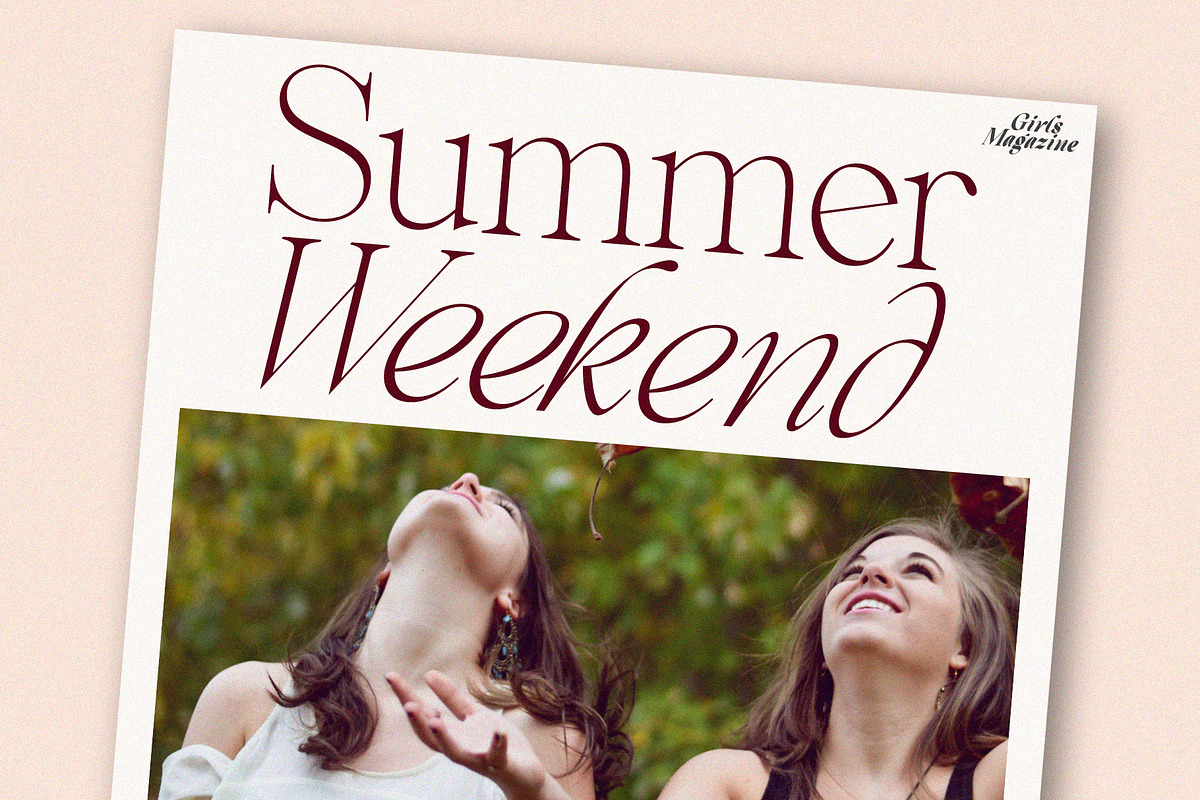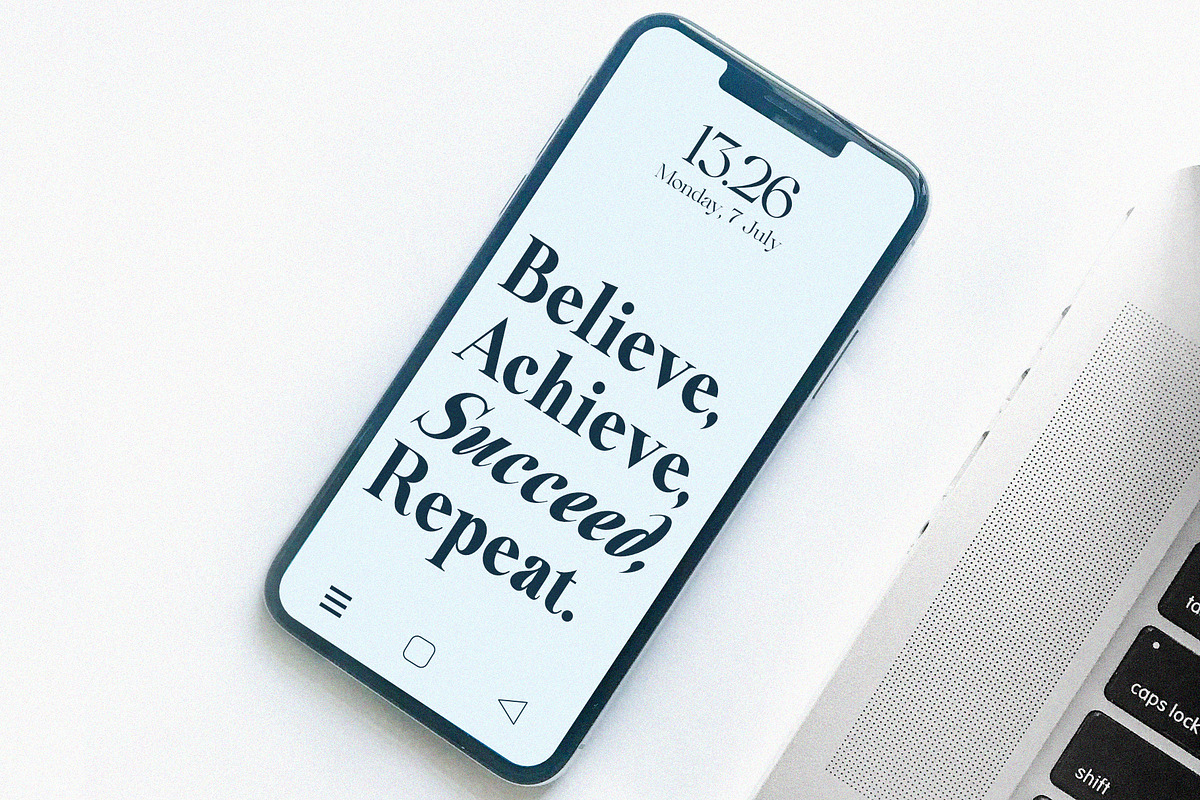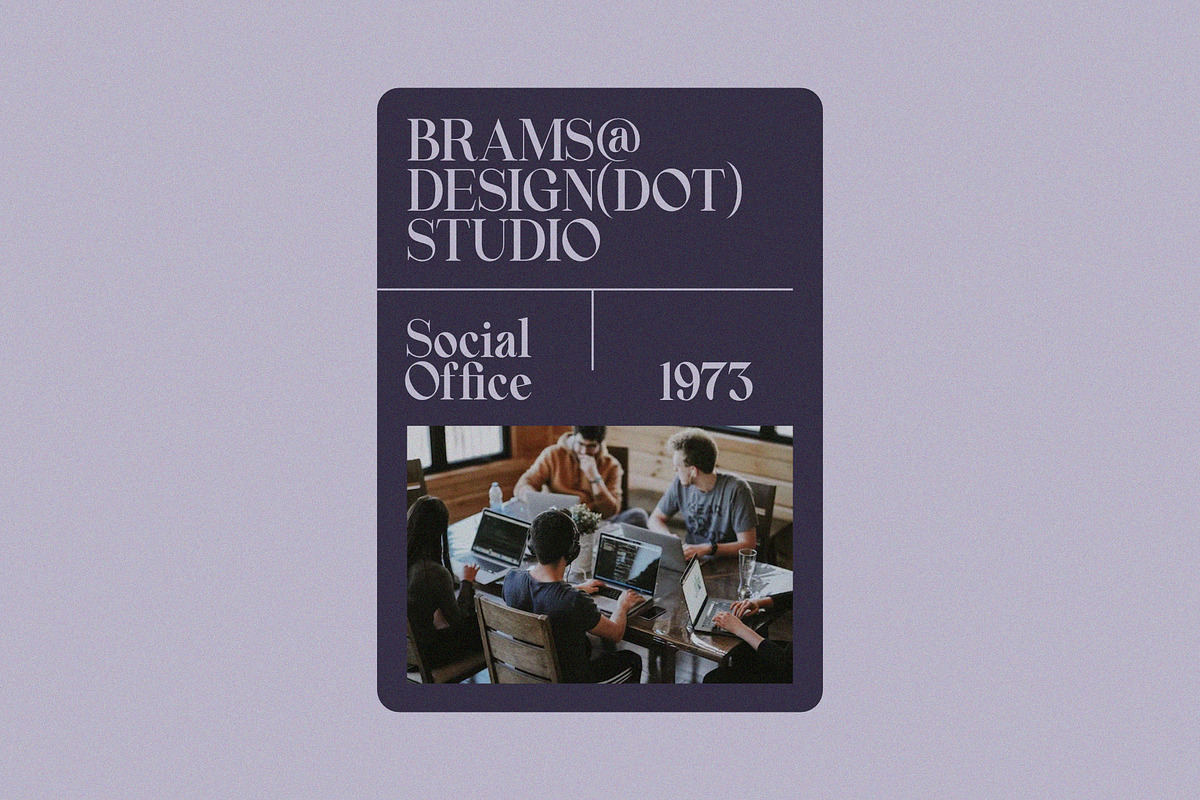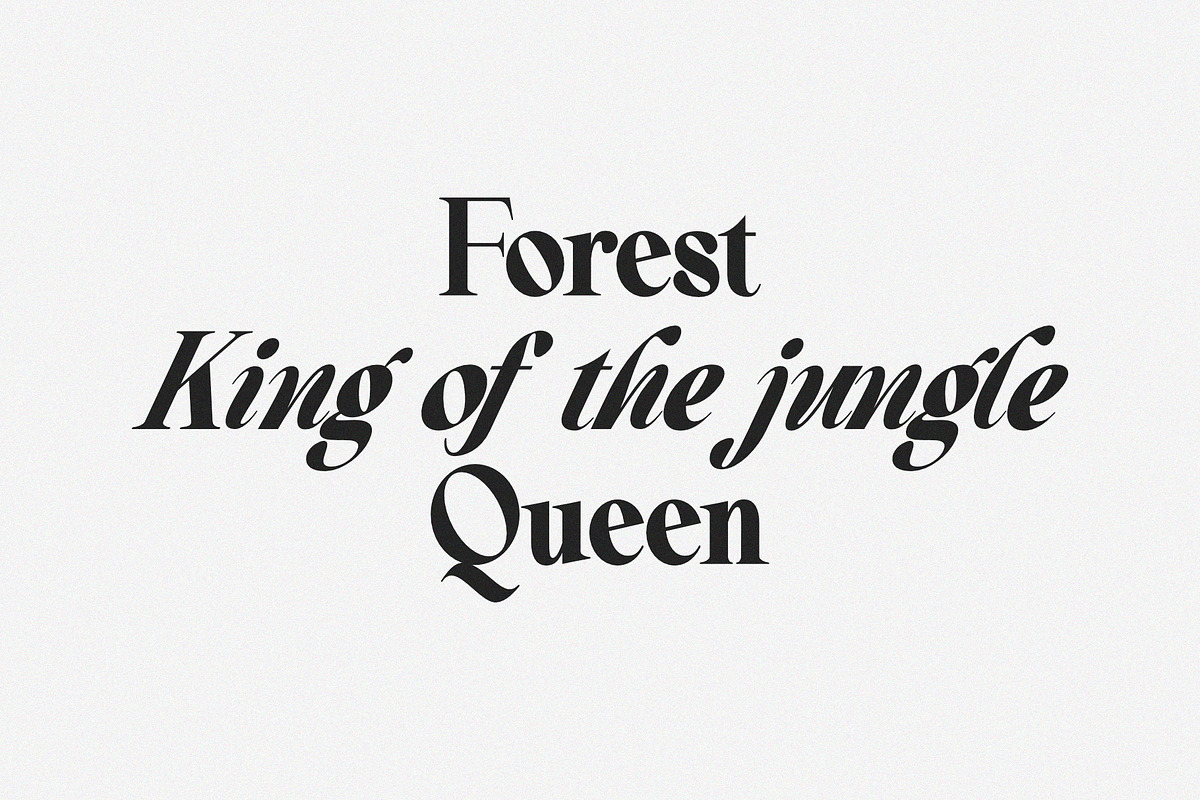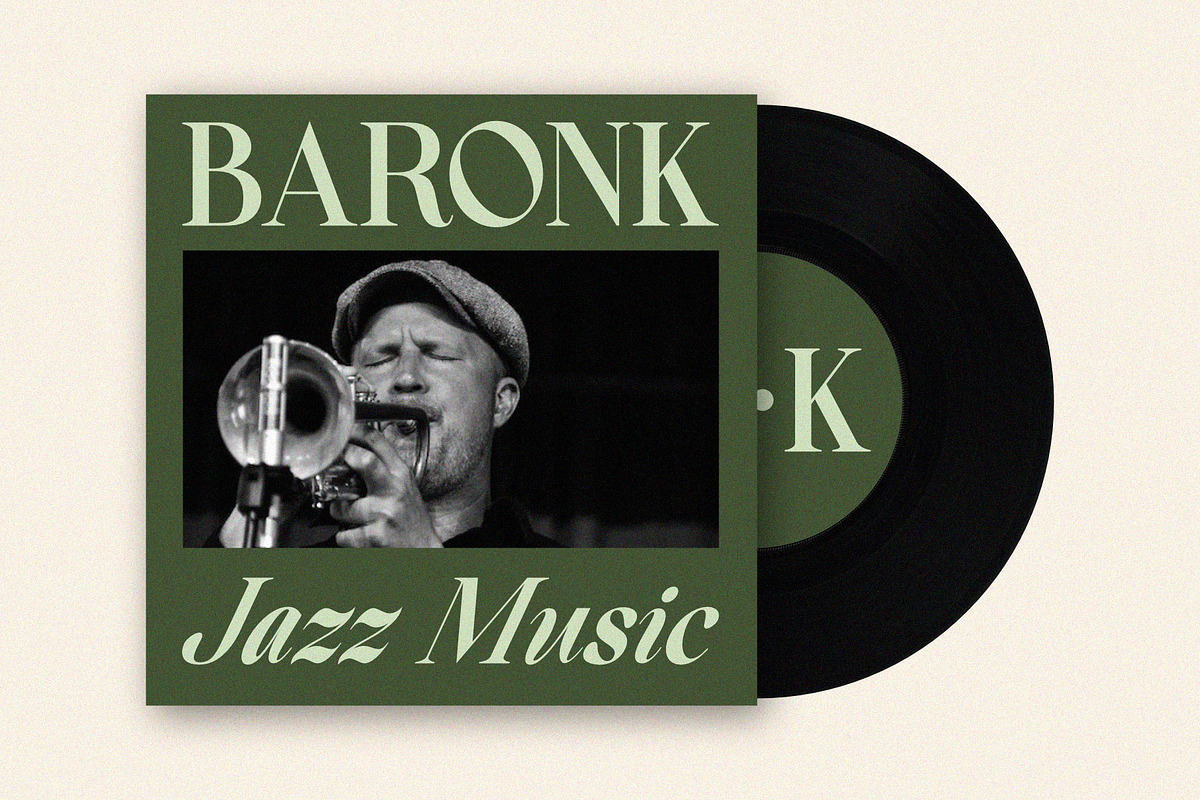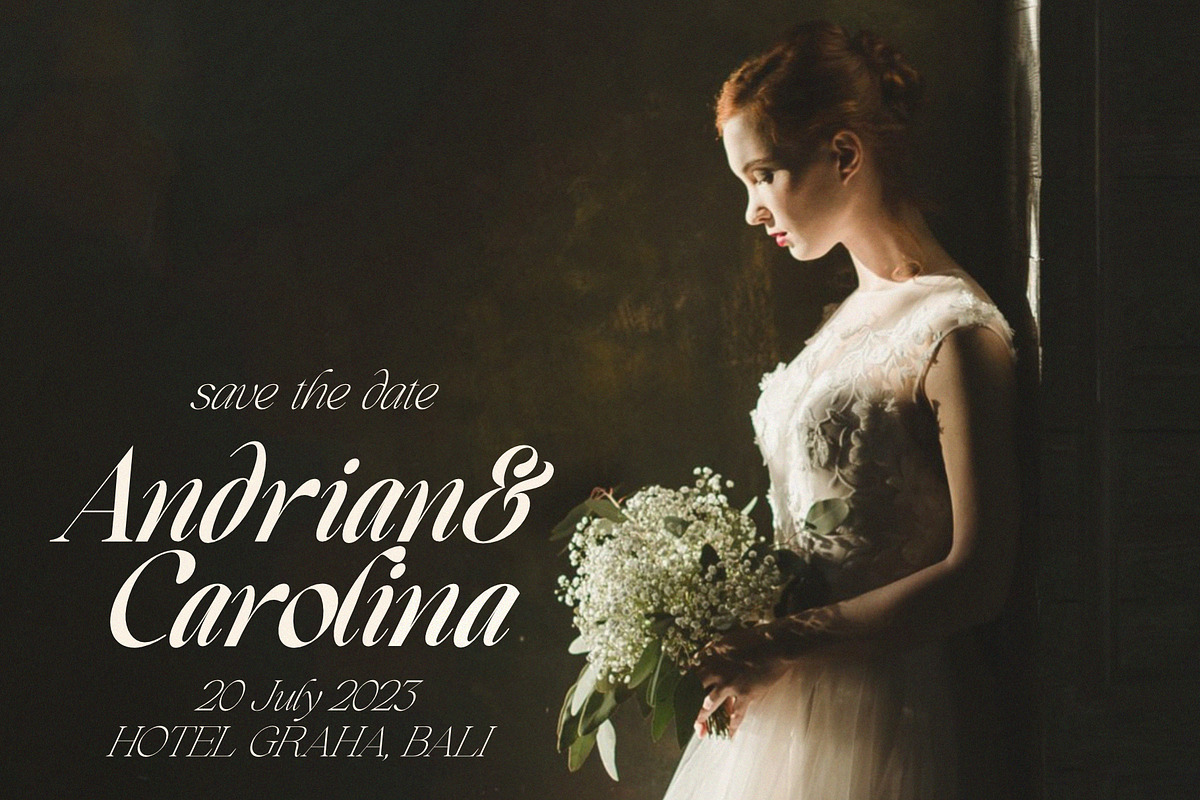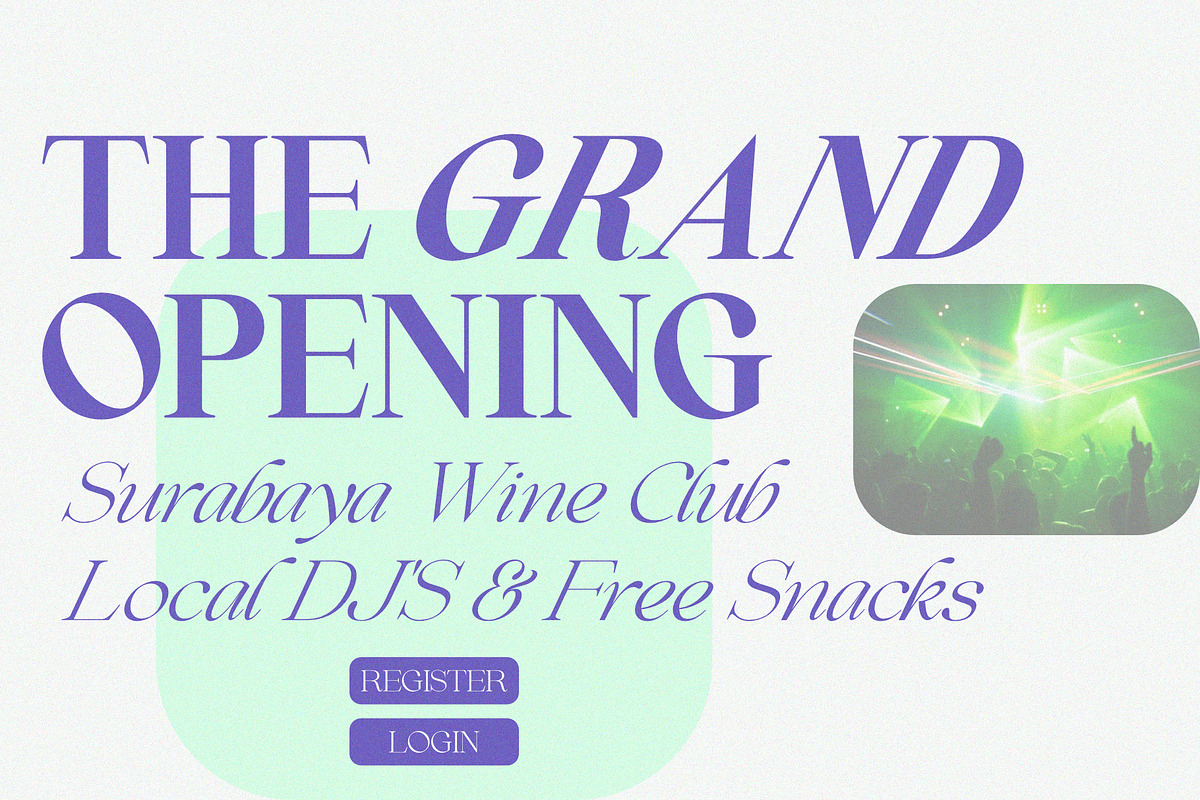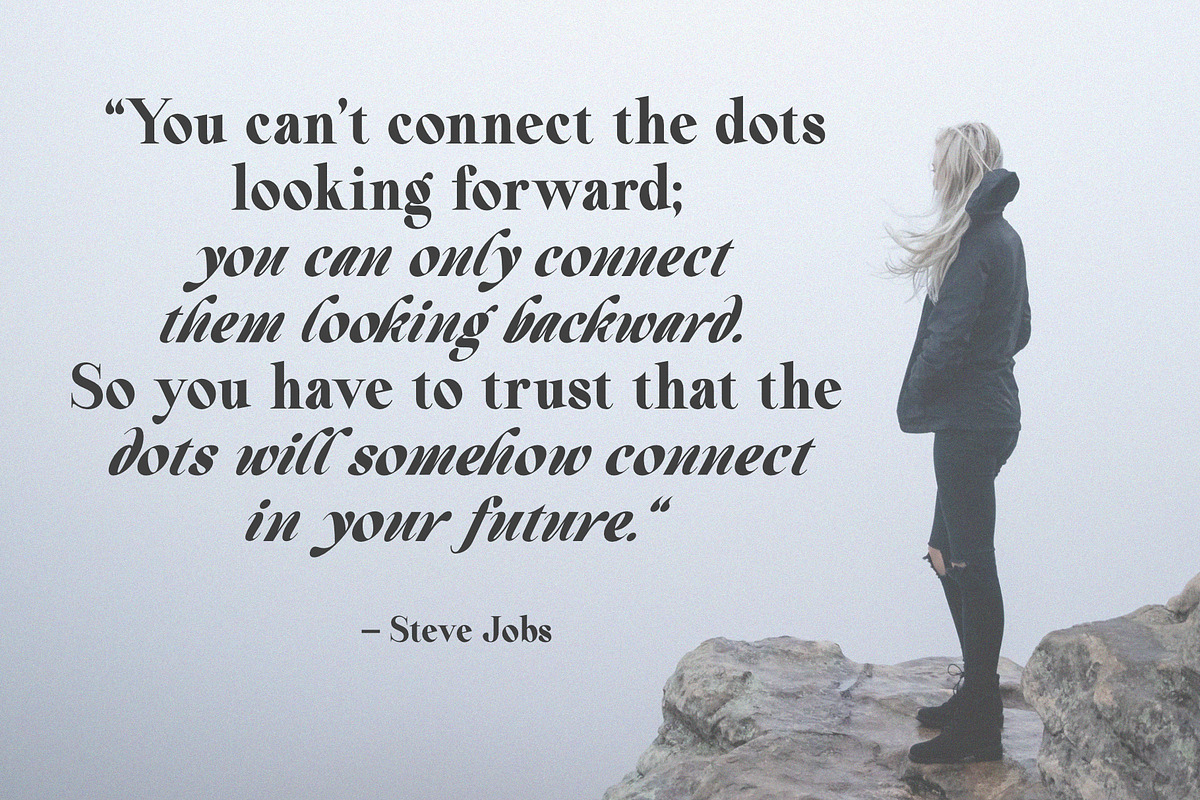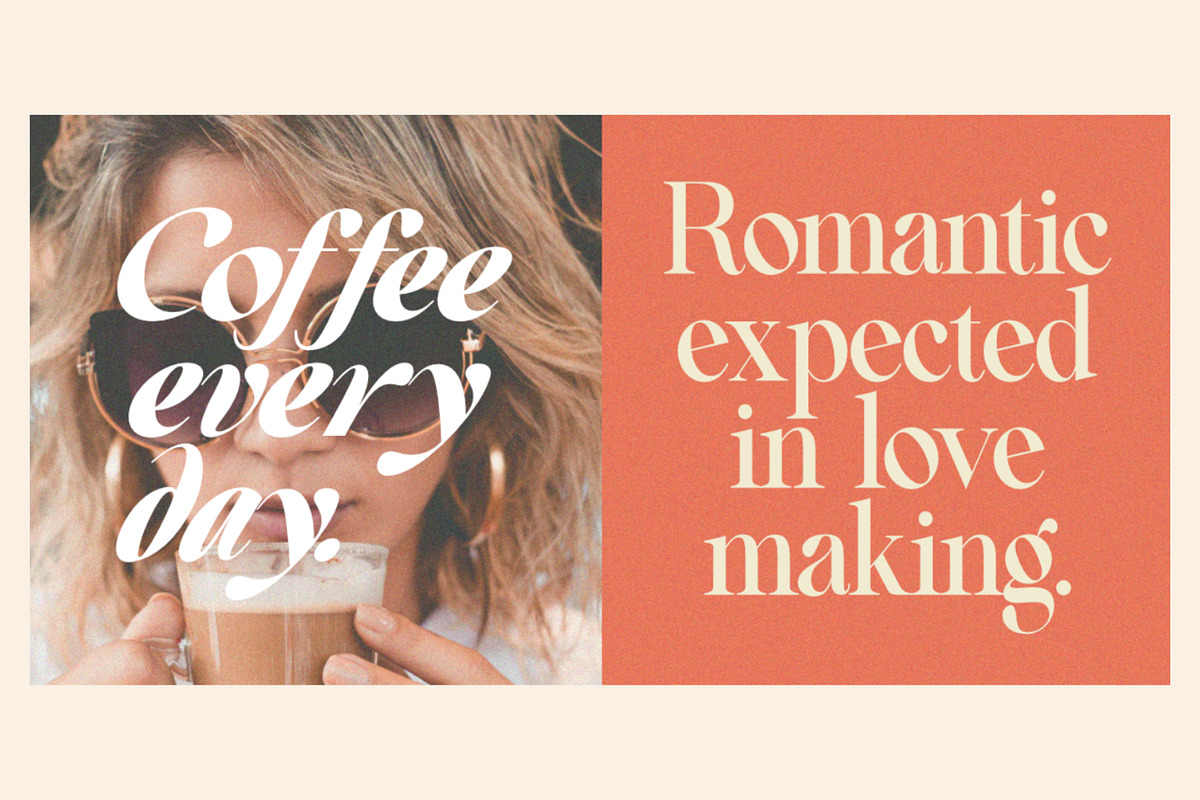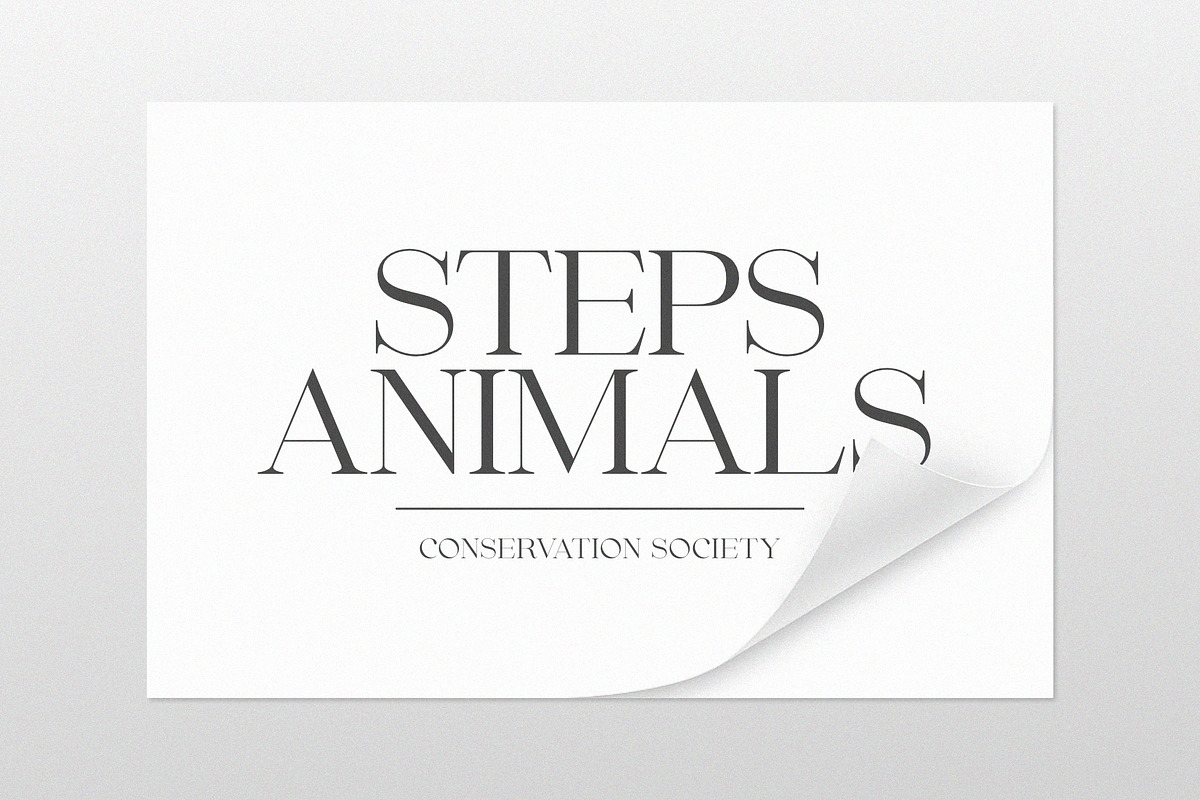
Beautiful Comethrue Family 54 Fonts
Say hello to Beautiful Comethrue FAMILY – an expansion of Beautiful Comethrue that includes 54 fonts, 3 widths and 9 weights, from thin to Heavy, and still has all the nostalgic vibes!
Beautiful Comethrue is a beautifully nostalgic 54-font typeface that looks amazing in both large and small settings as a display and text body.
Inspired by magazine ads from the 70s and 80s - this family is perfect for bringing retro back into the 21st century. Incredibly versatile - scroll through the previews to see the immense variety Beautiful Comethrue can create. The possibilities are truly endless :)
I really like combining regular and italic words, whether all in one word (like in the Missfits sample) or in the body text!
- 54 fonts for Beautiful Comethrue in regular and italic shapes, with varying weights from thin to heavy, and very thick to Regular widths.